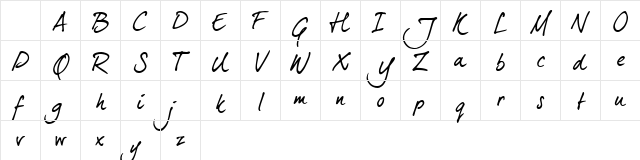
Complete dearJoe 5 CASUAL trial Regular glyph index. Displaying only characters natively supported by dearJoe 5 CASUAL trial Regular font.
dearJoe 5 CASUAL trial is a composed and adaptable typeface that performs quietly and consistently across a wide range of design contexts.